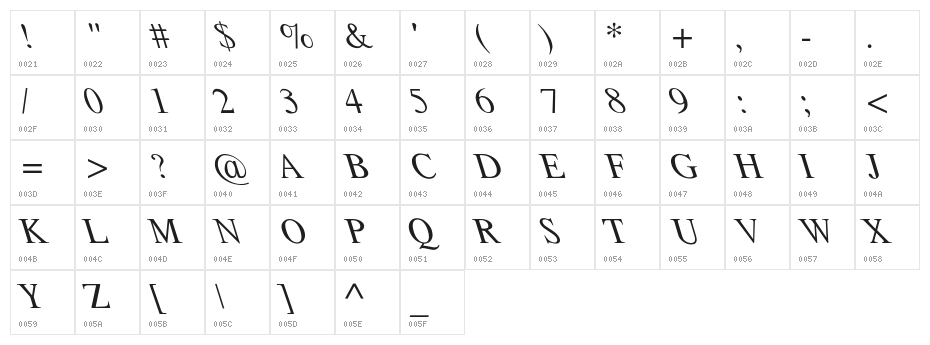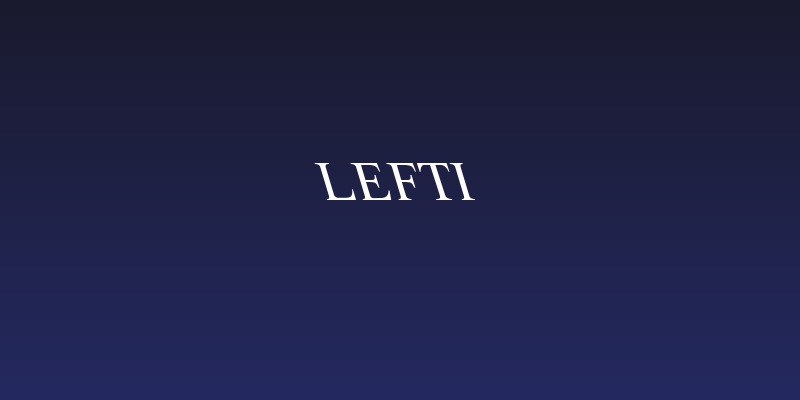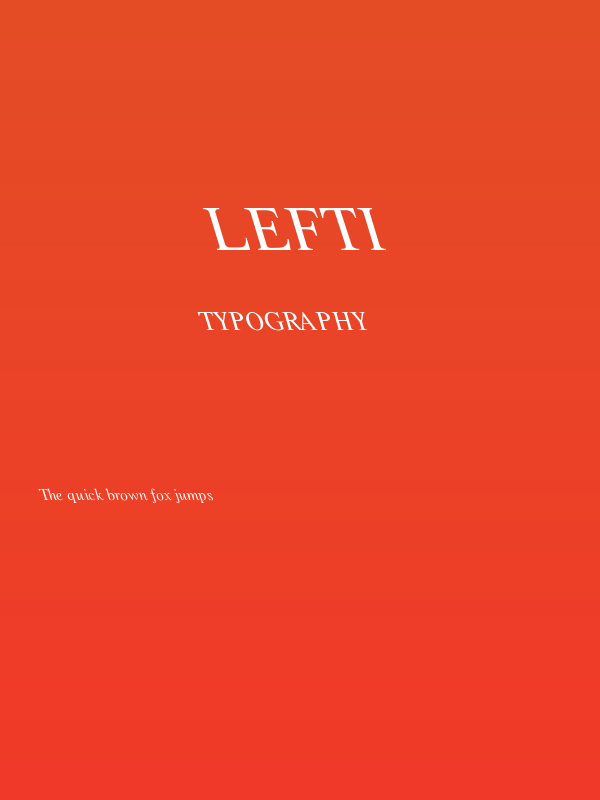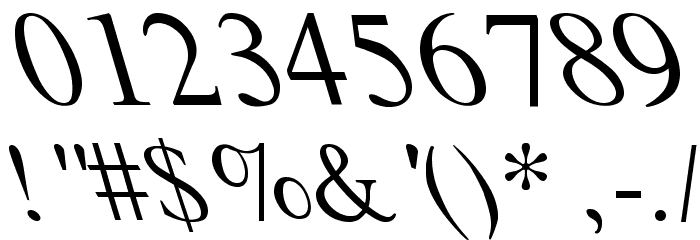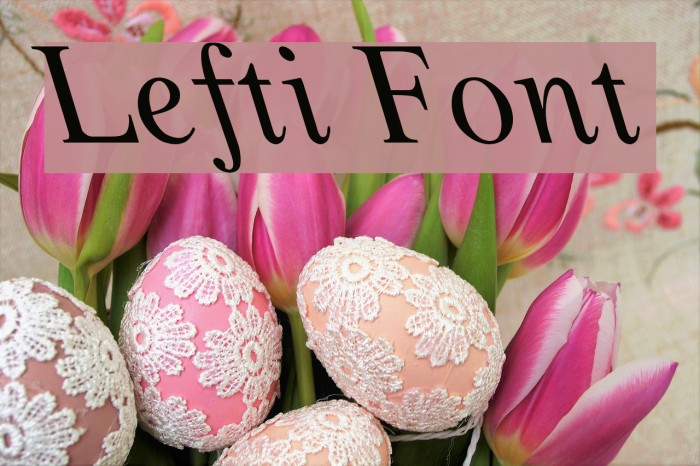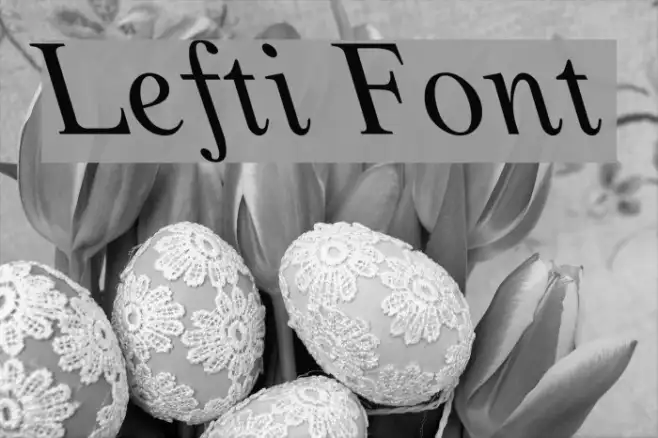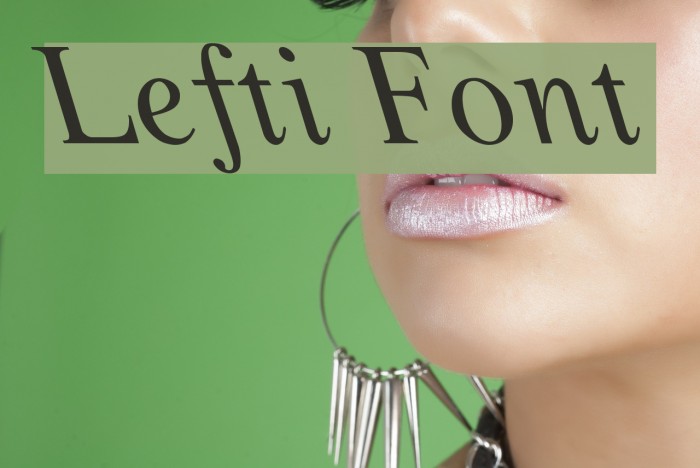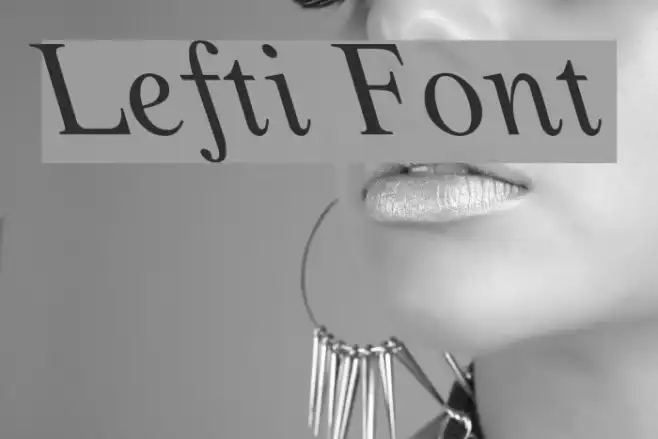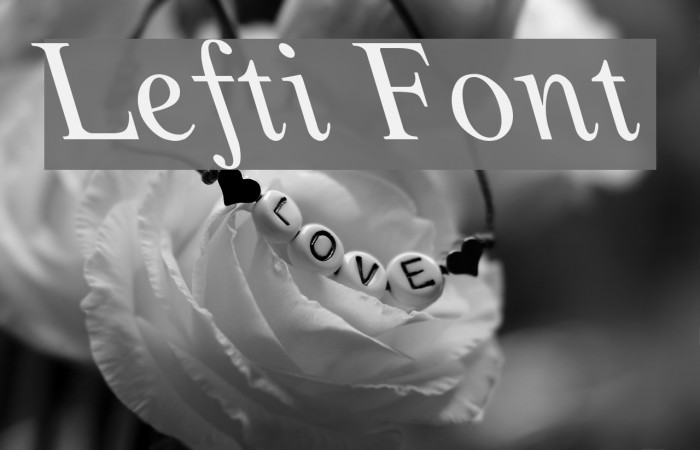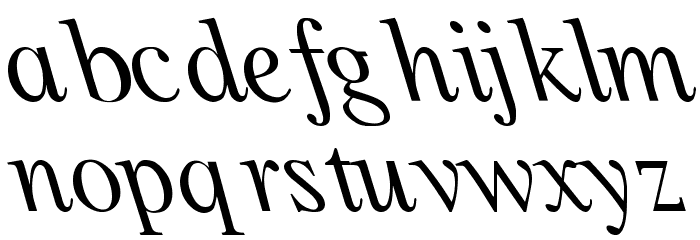
Lefti Font
Lefti Description
This font features a classic serif style with a slight italic slant, giving it an elegant and sophisticated appearance. The uppercase letters are bold and commanding, while the lowercase letters maintain a graceful flow. The numerals are clear and distinct, with a traditional look that complements the overall design. Special characters are well-integrated, maintaining the font's cohesive style. The strokes vary in thickness, providing a medium contrast that enhances readability while adding a touch of refinement.
| Overall Style | Classic |
| Use Case | Headlines, Body text, Logos |
| Proposed Projects | Ideal for formal invitations, elegant branding, book covers, and editorial design. |